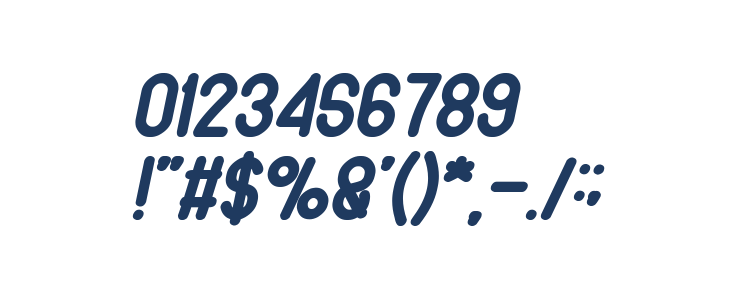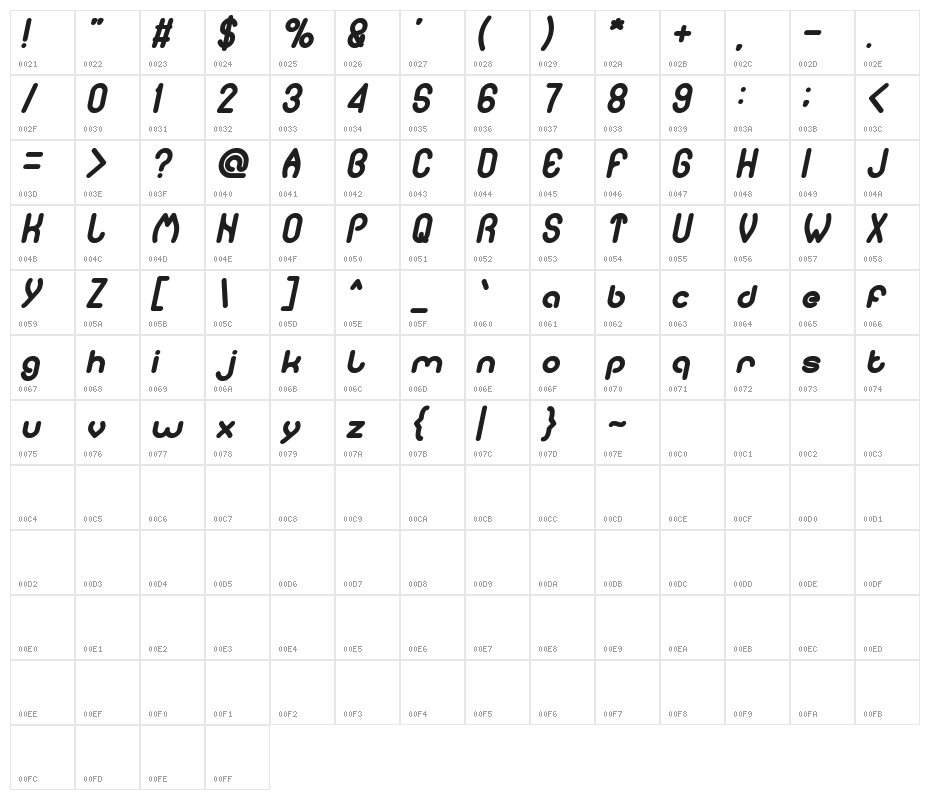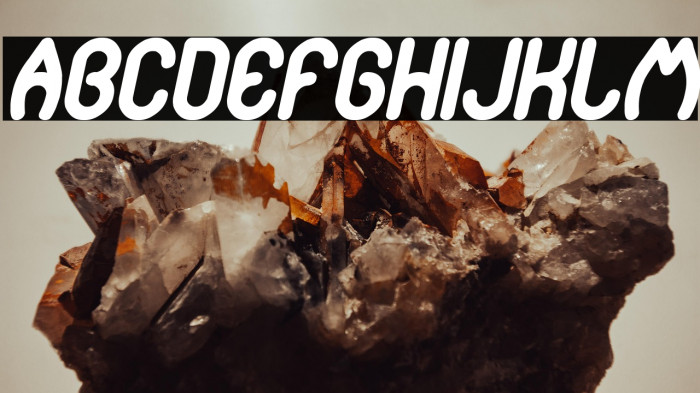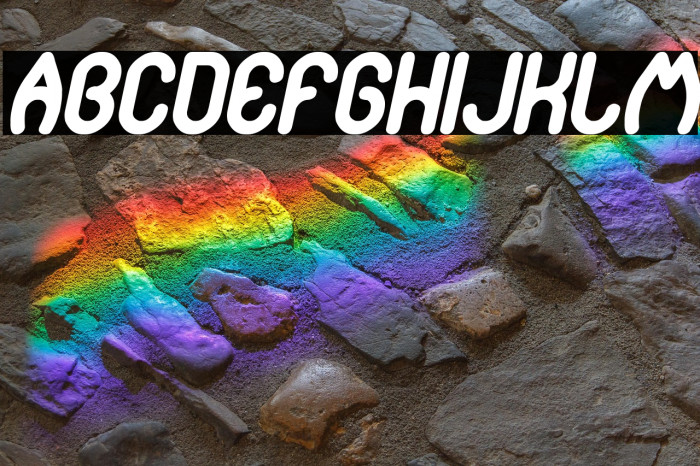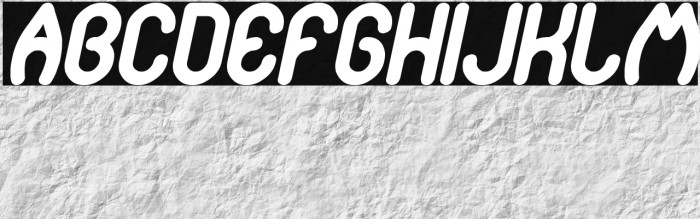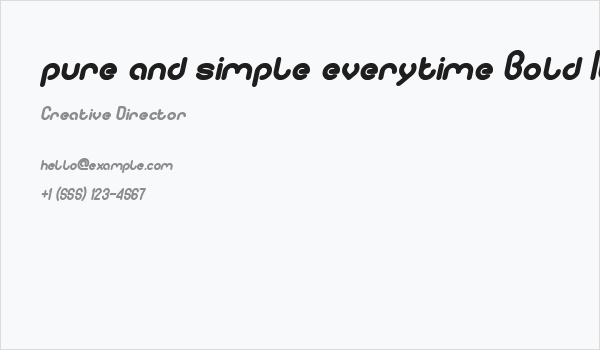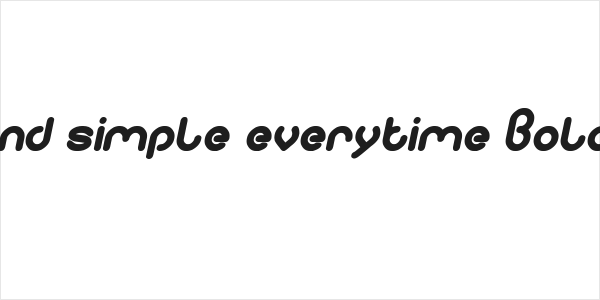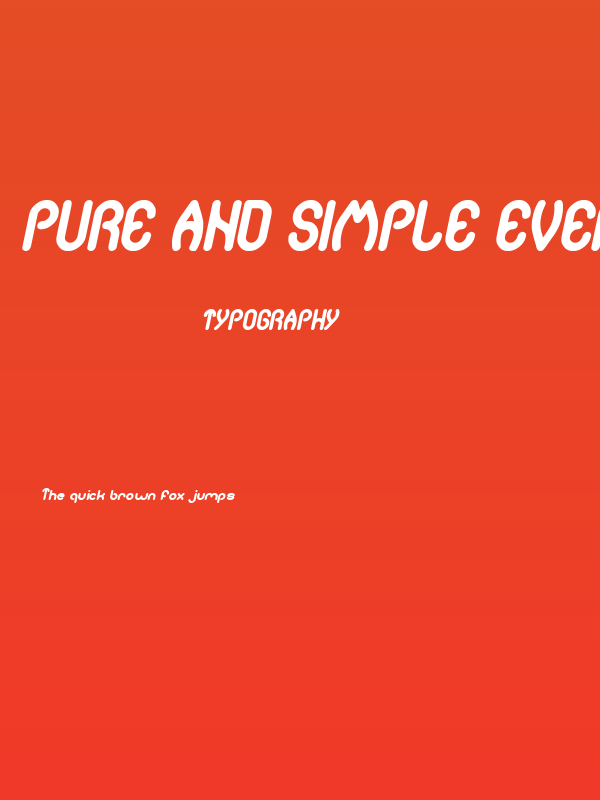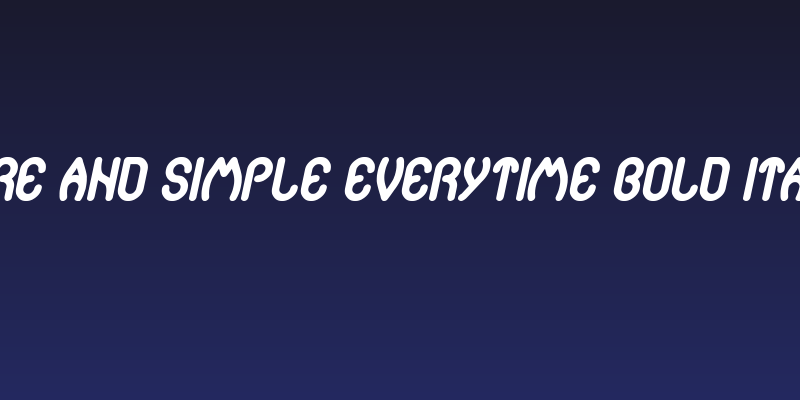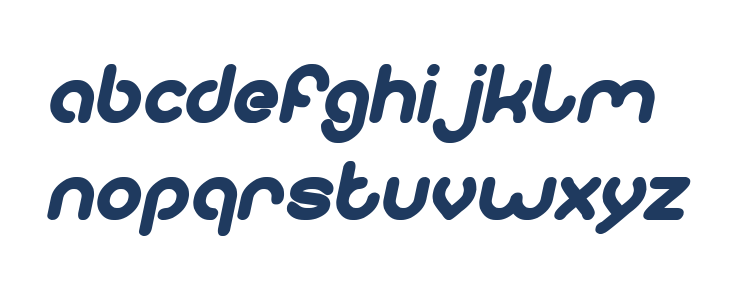
pure and simple everytime Bold Italic Font
pure and simple everytime Bold Italic Description
This font features a bold and italic style with a playful, rounded appearance. Each character is designed with smooth curves and a consistent stroke width, giving it a friendly and approachable look. The uppercase and lowercase letters maintain a uniform style, with slightly exaggerated curves that add a touch of whimsy. The numbers and special characters are equally bold, ensuring readability and consistency across all glyphs. This font's boldness and rounded edges make it ideal for projects that require a fun and engaging visual impact.